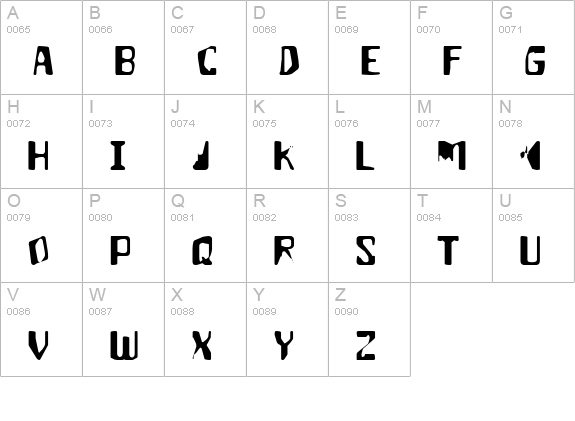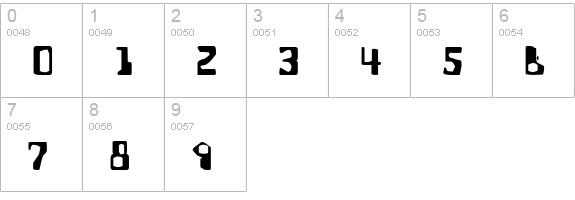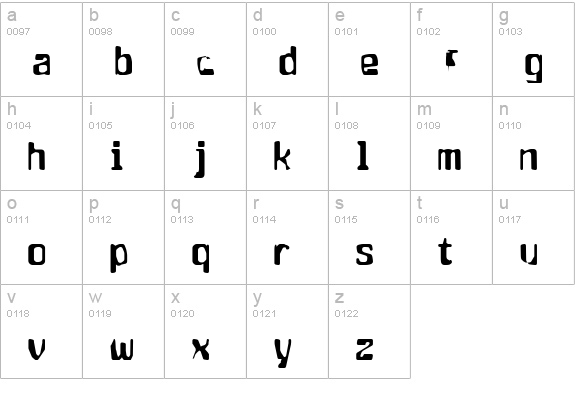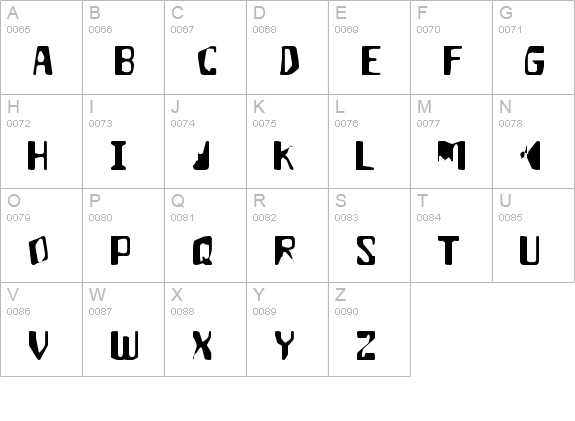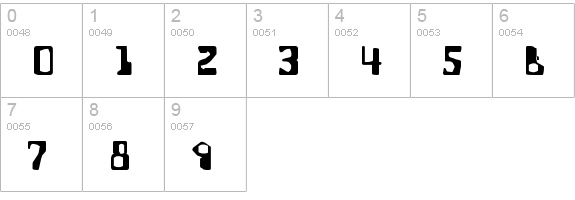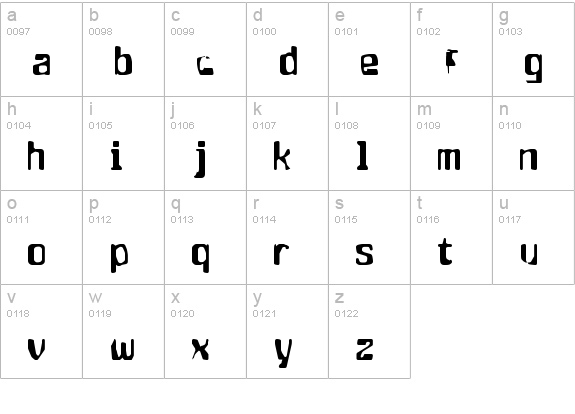
aptango Font Details
Aptango font is a modern and stylish typeface that exudes elegance and sophistication. With its sleek lines and contemporary design, Aptango is perfect for adding a touch of class to any project. This versatile font is ideal for a wide range of applications, from branding and marketing materials to web design and print projects. One of the best things about Aptango font is that it is completely free to download. You can easily access this stunning typeface at FontsMarket.com, where you can enhance your creative projects with this beautiful font without any cost. So why wait? Add a touch of sophistication to your designs with Aptango font today!